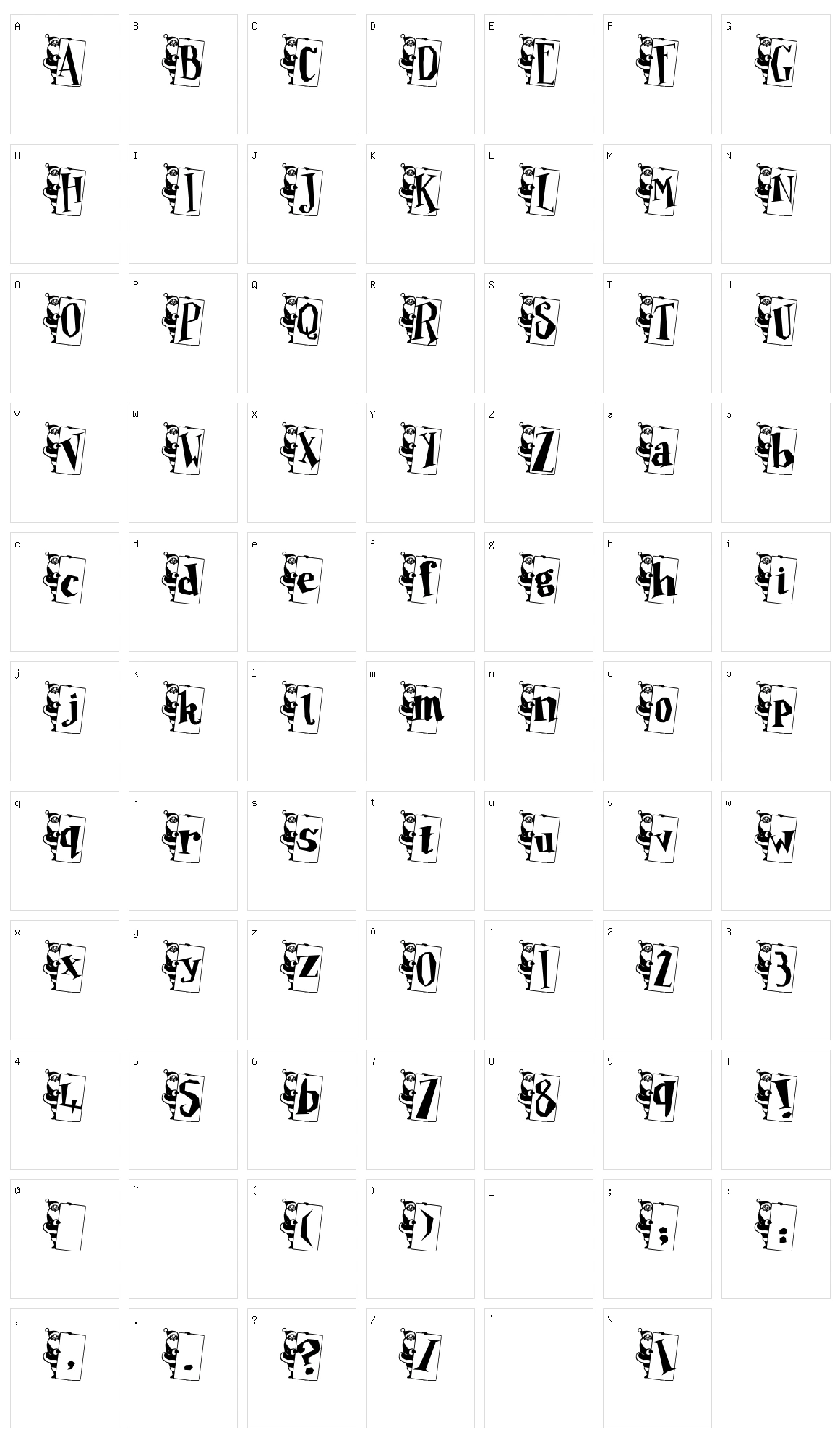
The free font Papa No?l is carefully designed by Chloe5972, showcasing a thoughtful balance of creativity and usability and falls under the Christmas font style. When you download the ZIP file, it contains only 7.67 KB of font files, making it lightweight and quick to download. Please review the license details below to understand permitted usage and distribution rights. If license information is not available, we recommend using this font for personal projects only or contacting the author directly for commercial usage permissions.